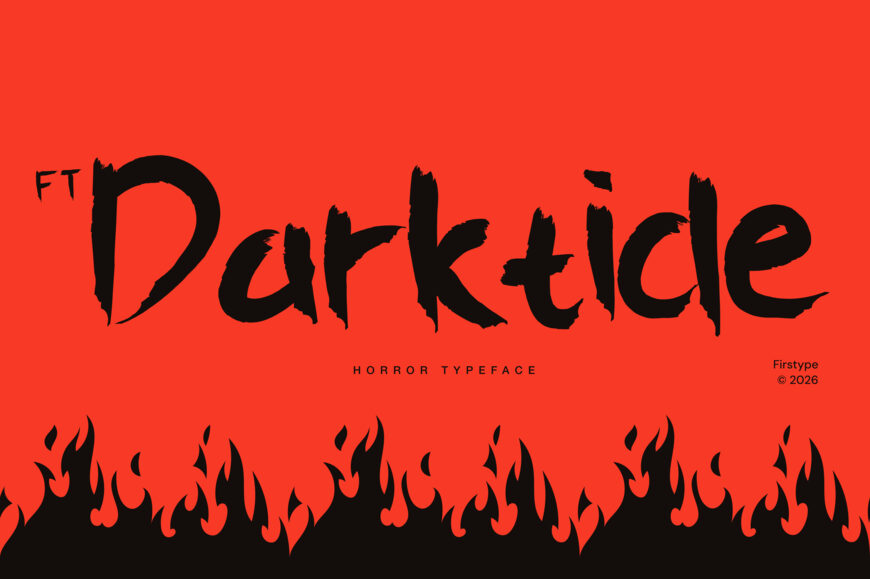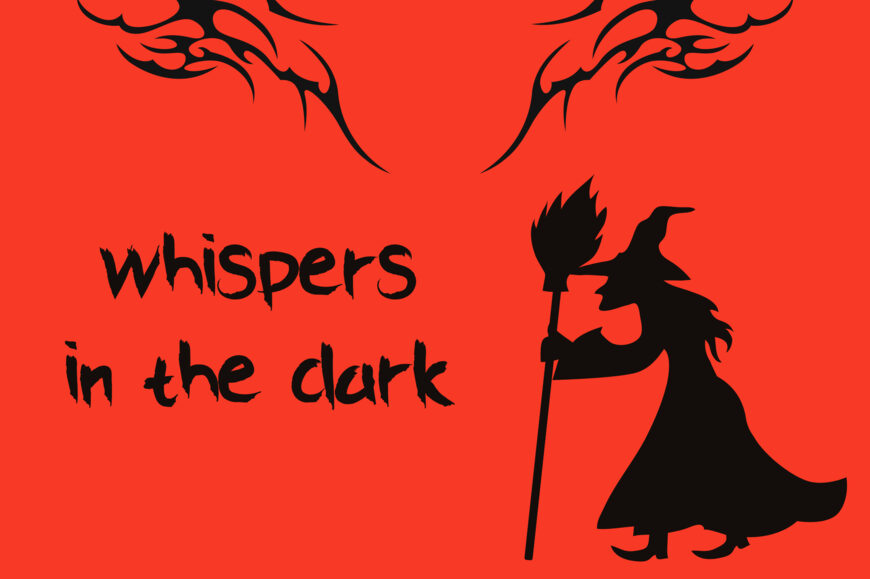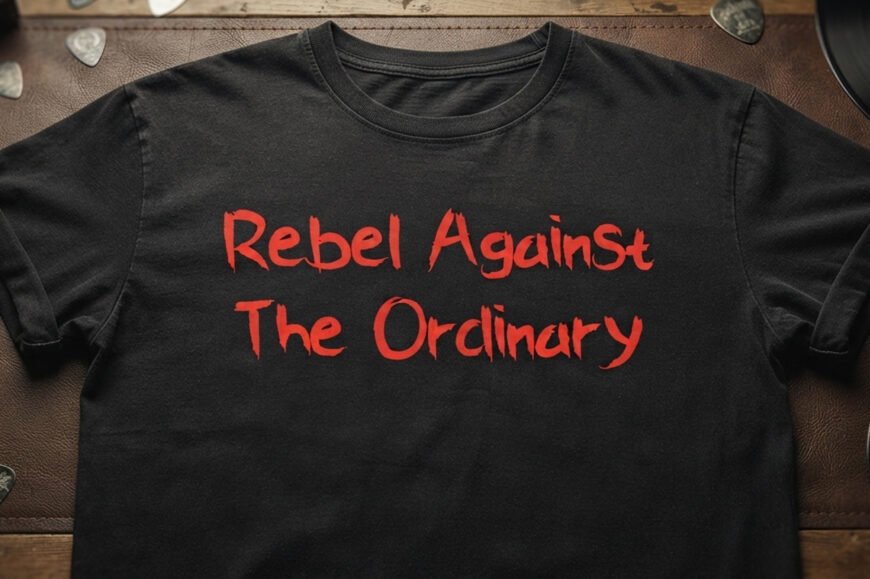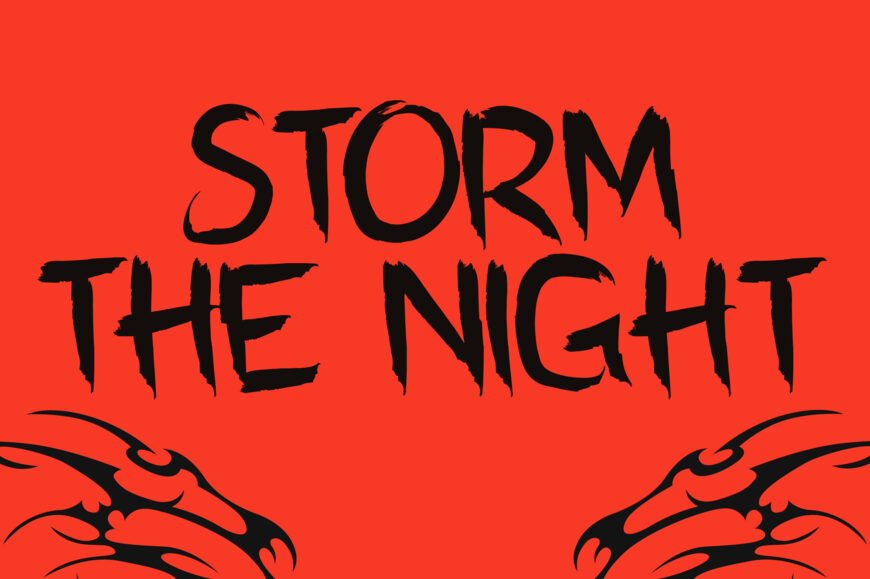
Unleash raw energy, spine-chilling suspense, and intense thriller impact with Darktide! This aggressive horror display typeface features expressive, dry-brush strokes with jagged edges and sharp, sweeping terminals.
Its dark hand-painted texture captures an authentic, sinister feel that commands attention and brings fiery, villainous drama to any headline. Ideal for horror movie titles, Halloween posters, thrill-seeker apparel, gaming titles, metal band logos, book covers, and edgy social media graphics!